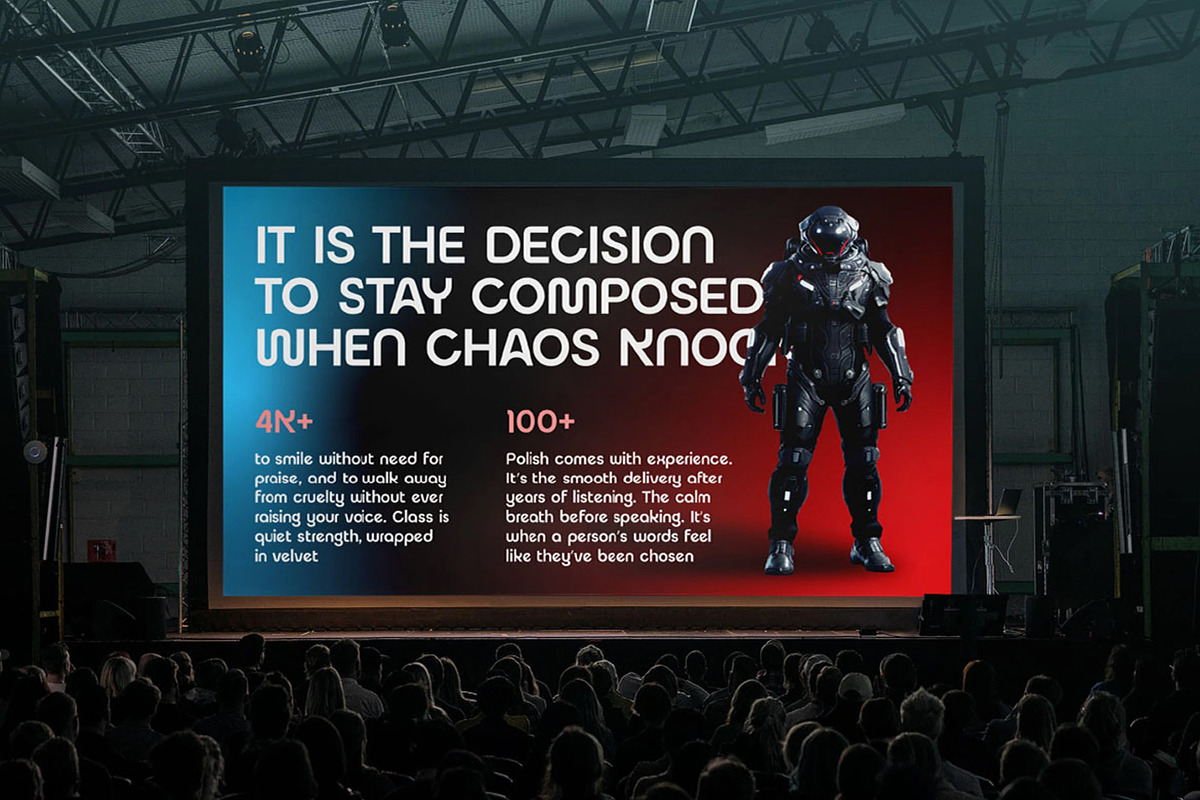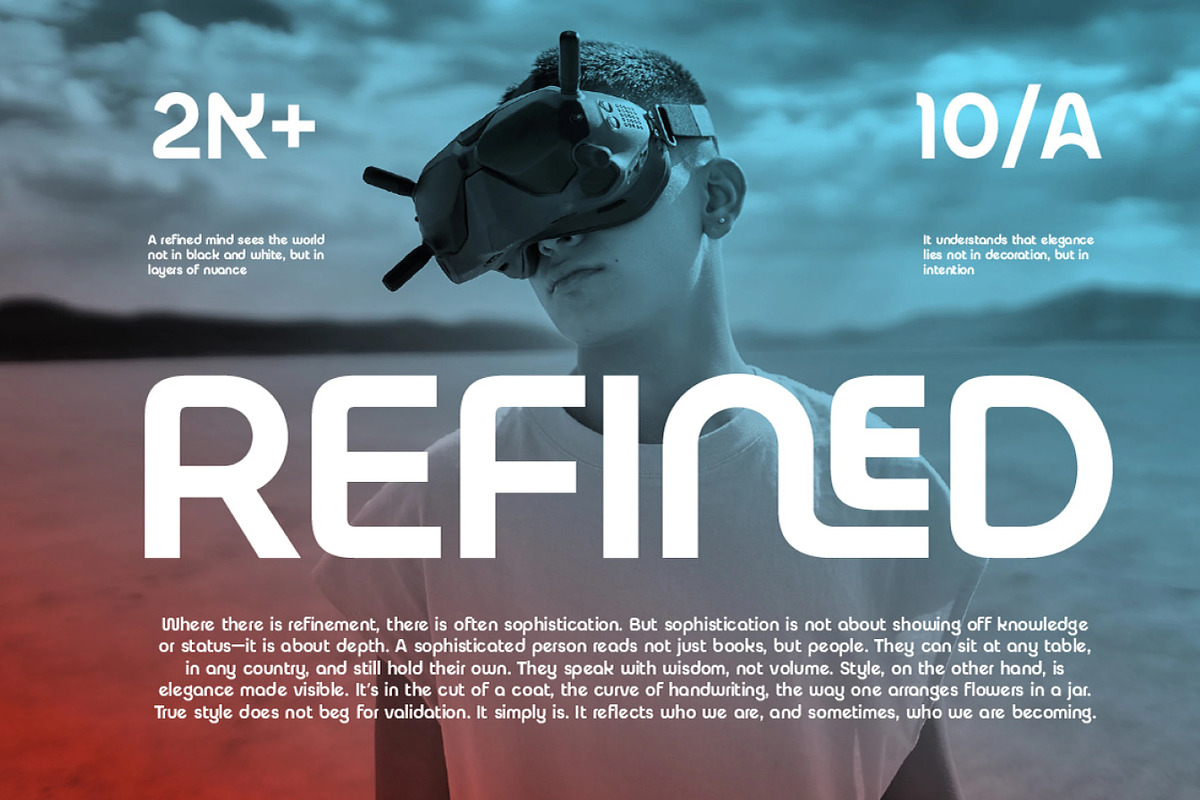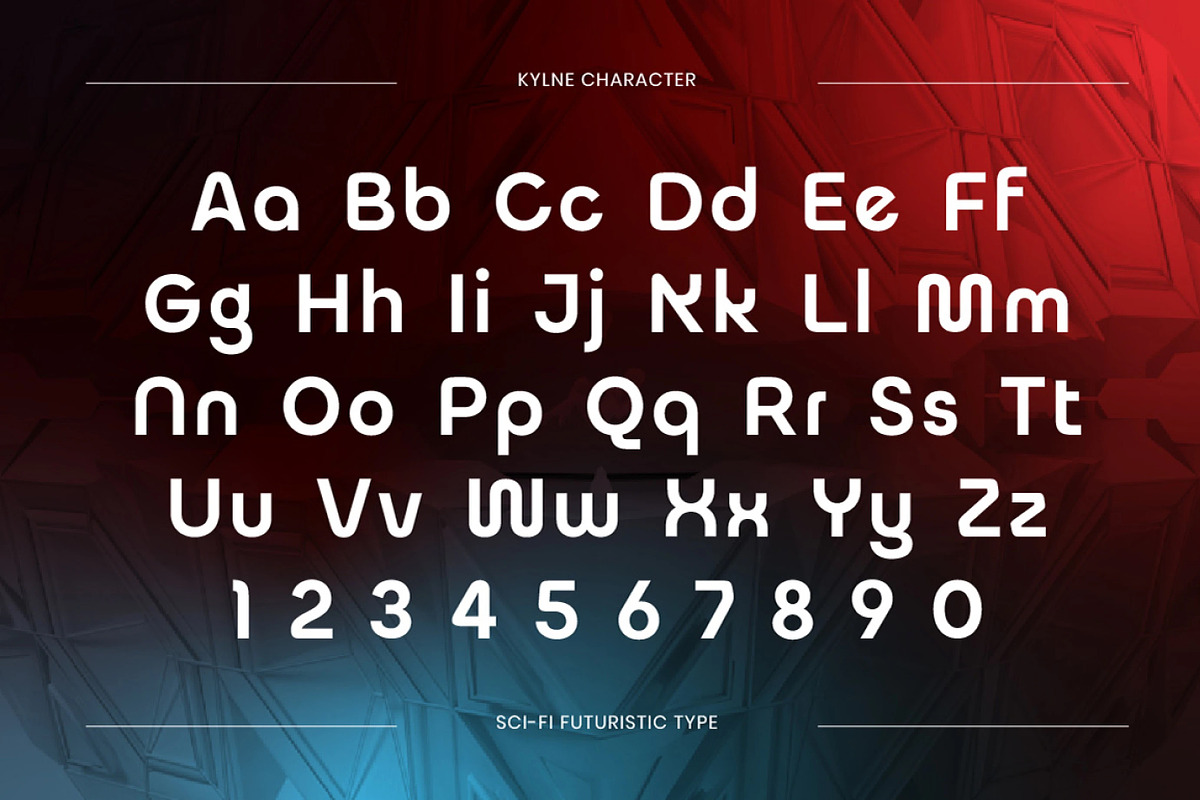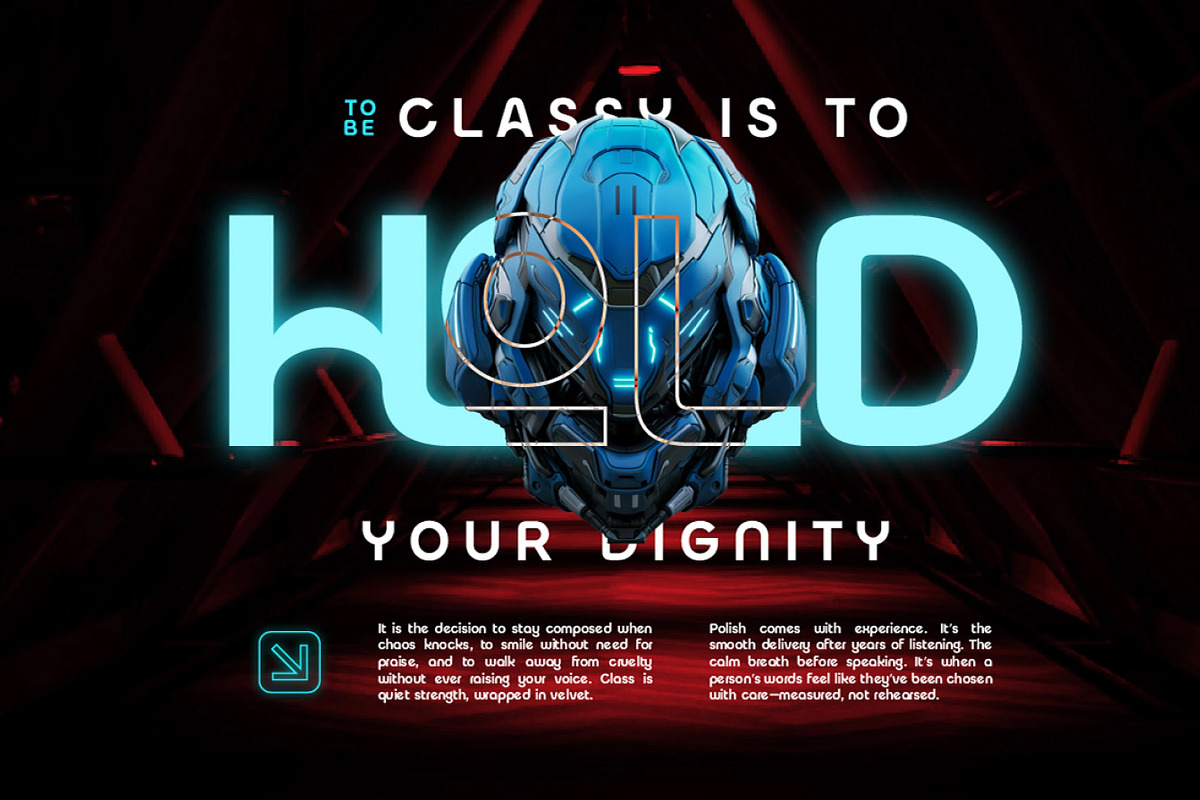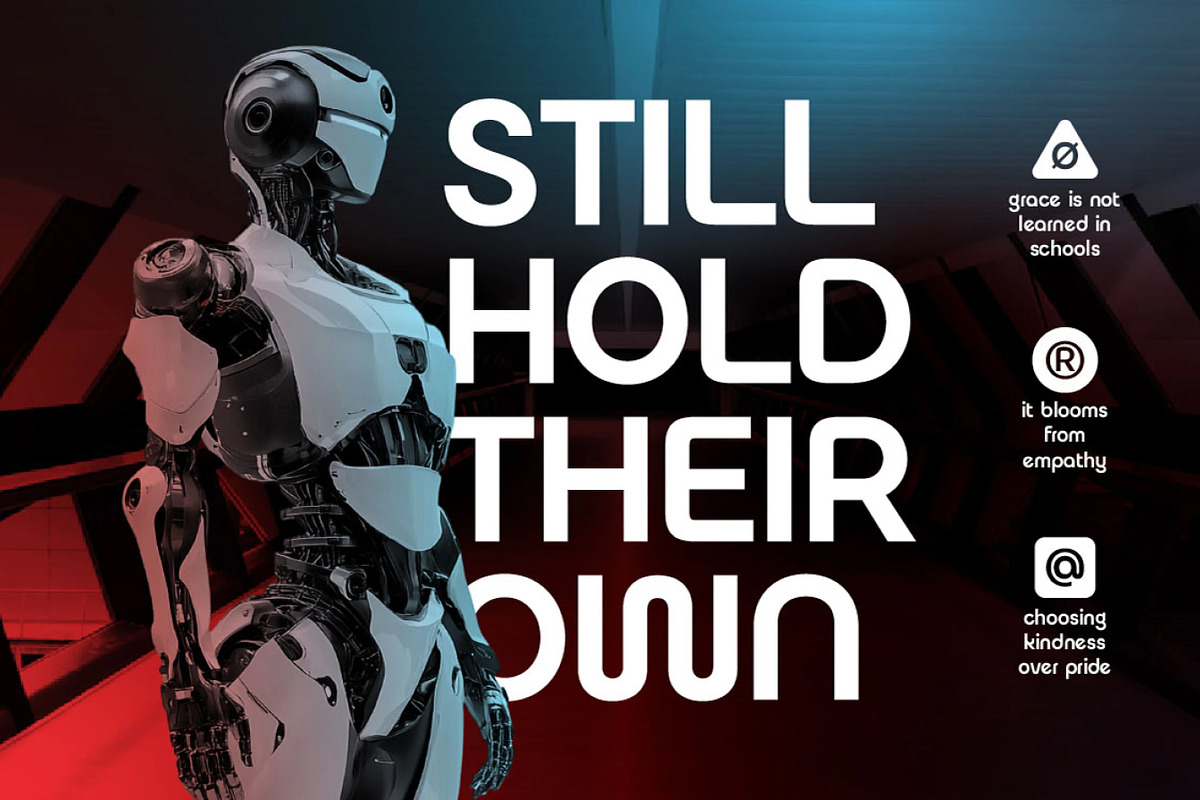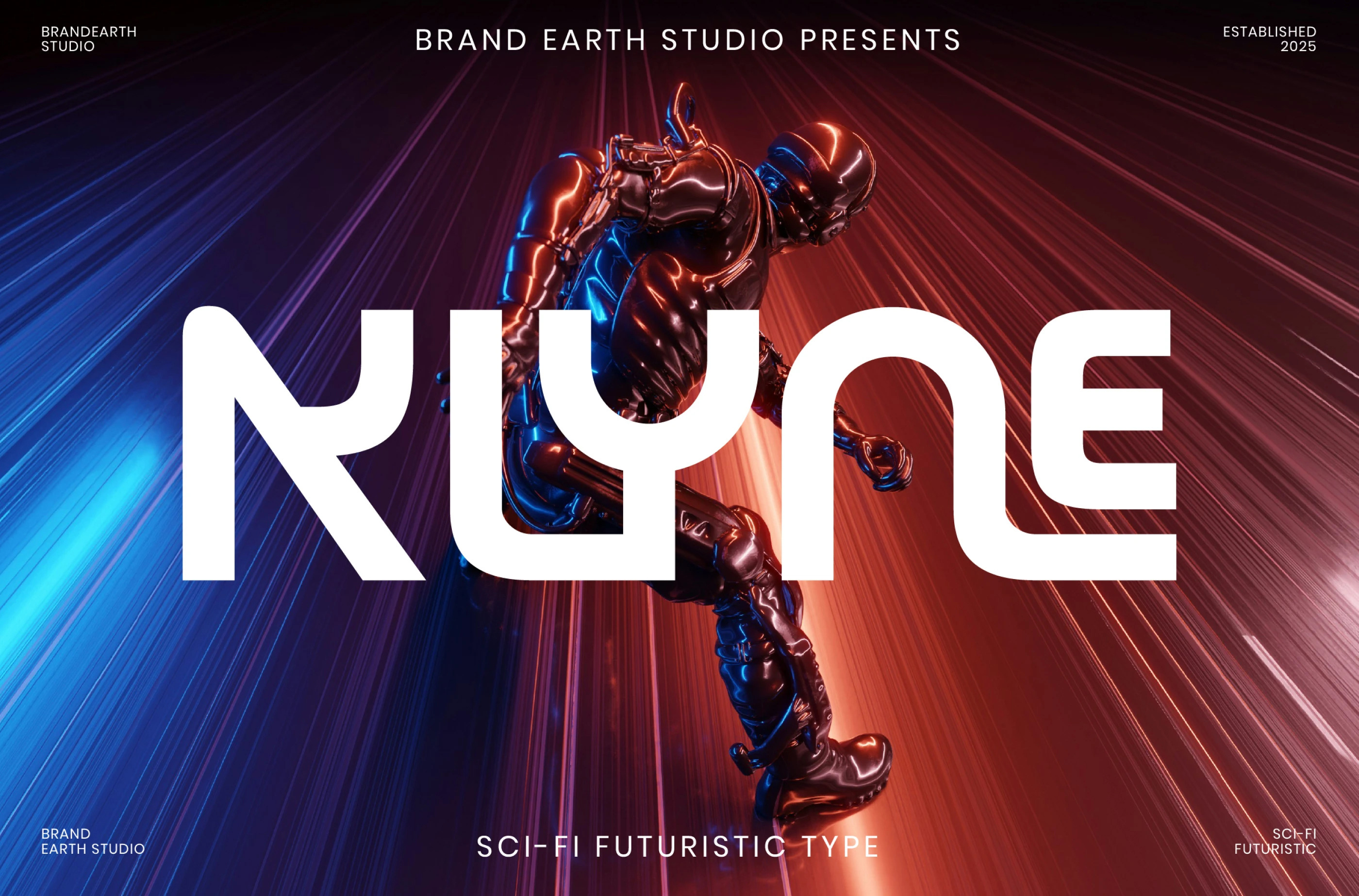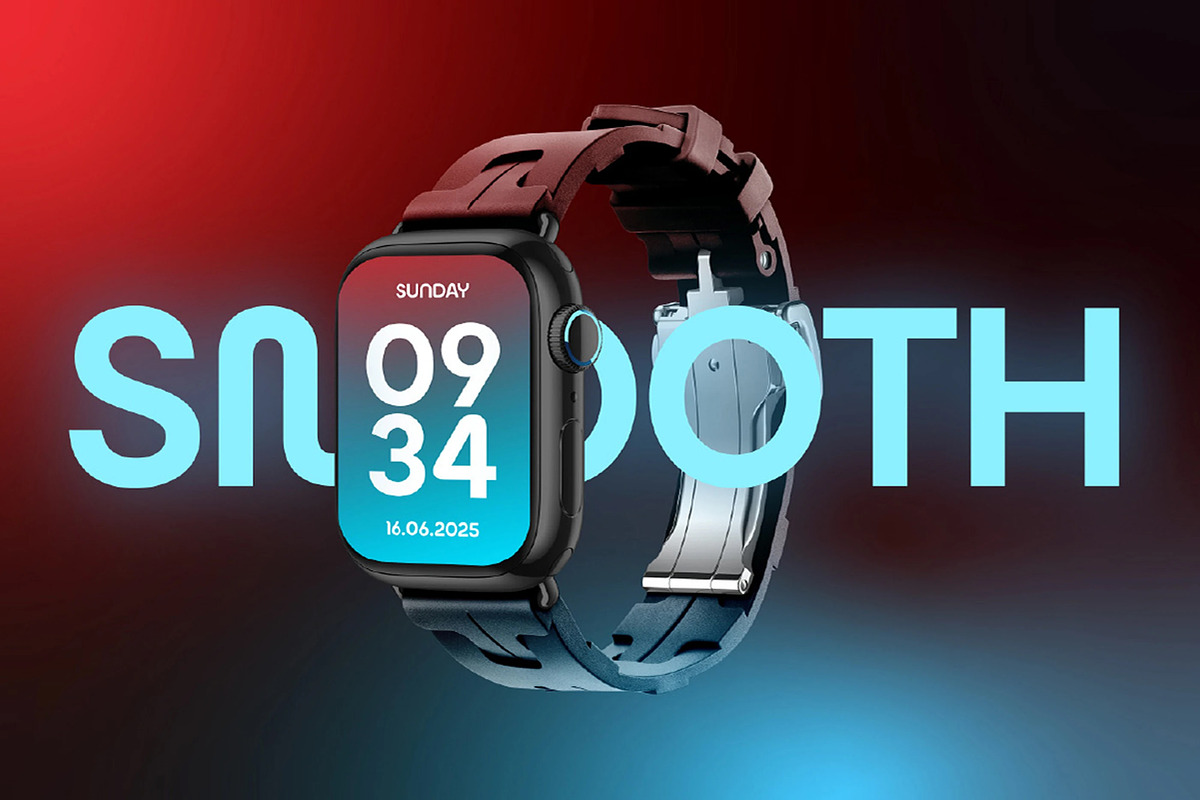
Klyne – Bold Futuristic Sci-Fi Font
KLYNE is a futuristic sci-fi font crafted for bold, high-tech visual projects. With its sleek curves, modular letterforms, and digital edge, it's perfect for cyberpunk posters, modern tech branding, futuristic logos, or UI displays. Designed with clarity and innovation in mind, KLYNE delivers a forward-thinking aesthetic ideal for gaming titles, product packaging, and sci-fi interfaces. This font bridges the gap between advanced technology and modern design, making your message feel cutting-edge and immersive.
The letterforms in KLYNE are built with sleek curves and modular structure, creating a precise, high-tech rhythm that gives the typeface its futuristic, digital character. It features a forward-thinking display quality that's perfect for cyberpunk branding, tech interfaces, and gaming titles.
With its digital edge and modern clarity, KLYNE bridges the gap between advanced technology and clean design. It delivers a cutting-edge, immersive feel while remaining highly legible, making it ideal for product packaging, sci-fi interfaces, and futuristic UI design.
Ligatures & Alternate
Numeral & Punctuations